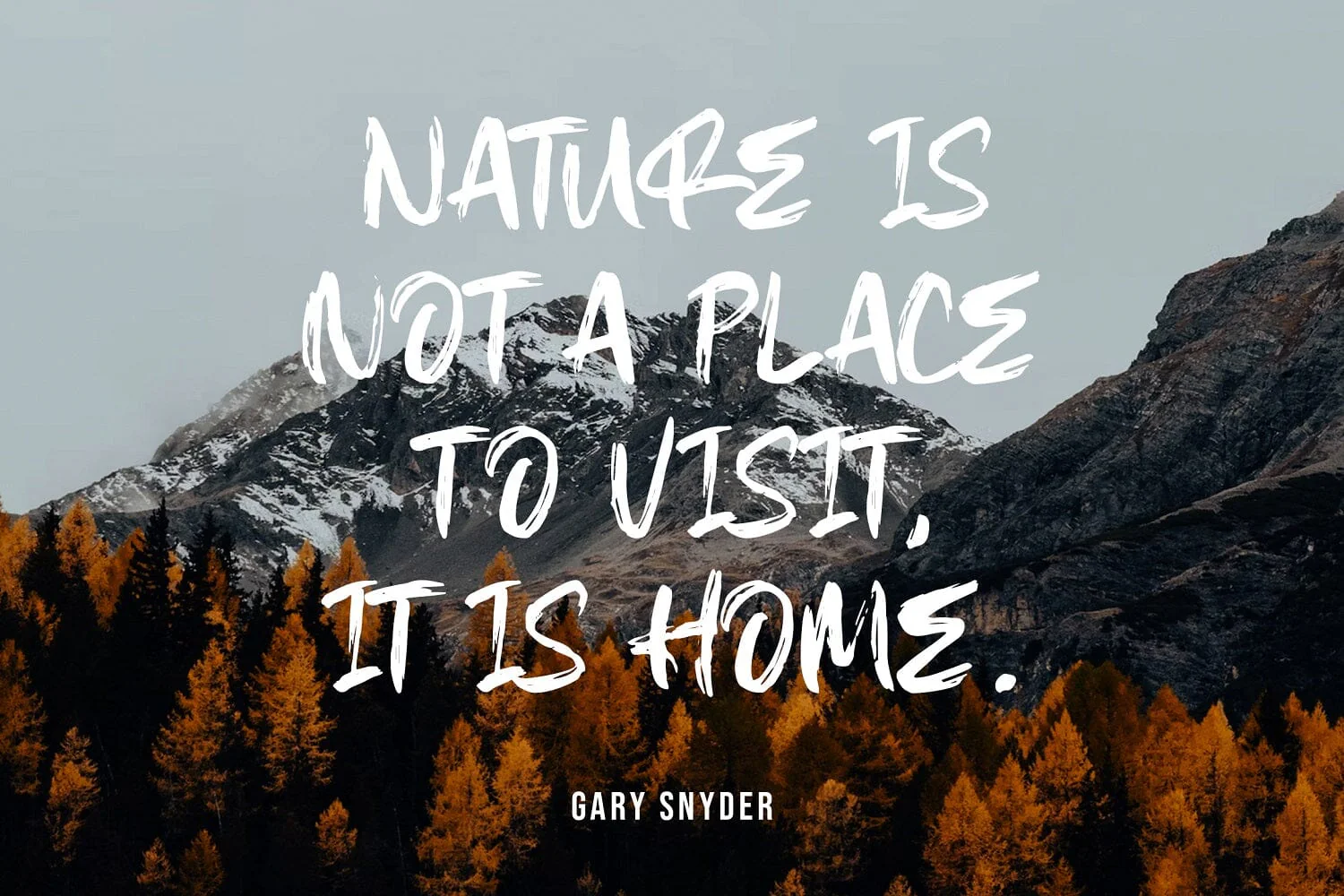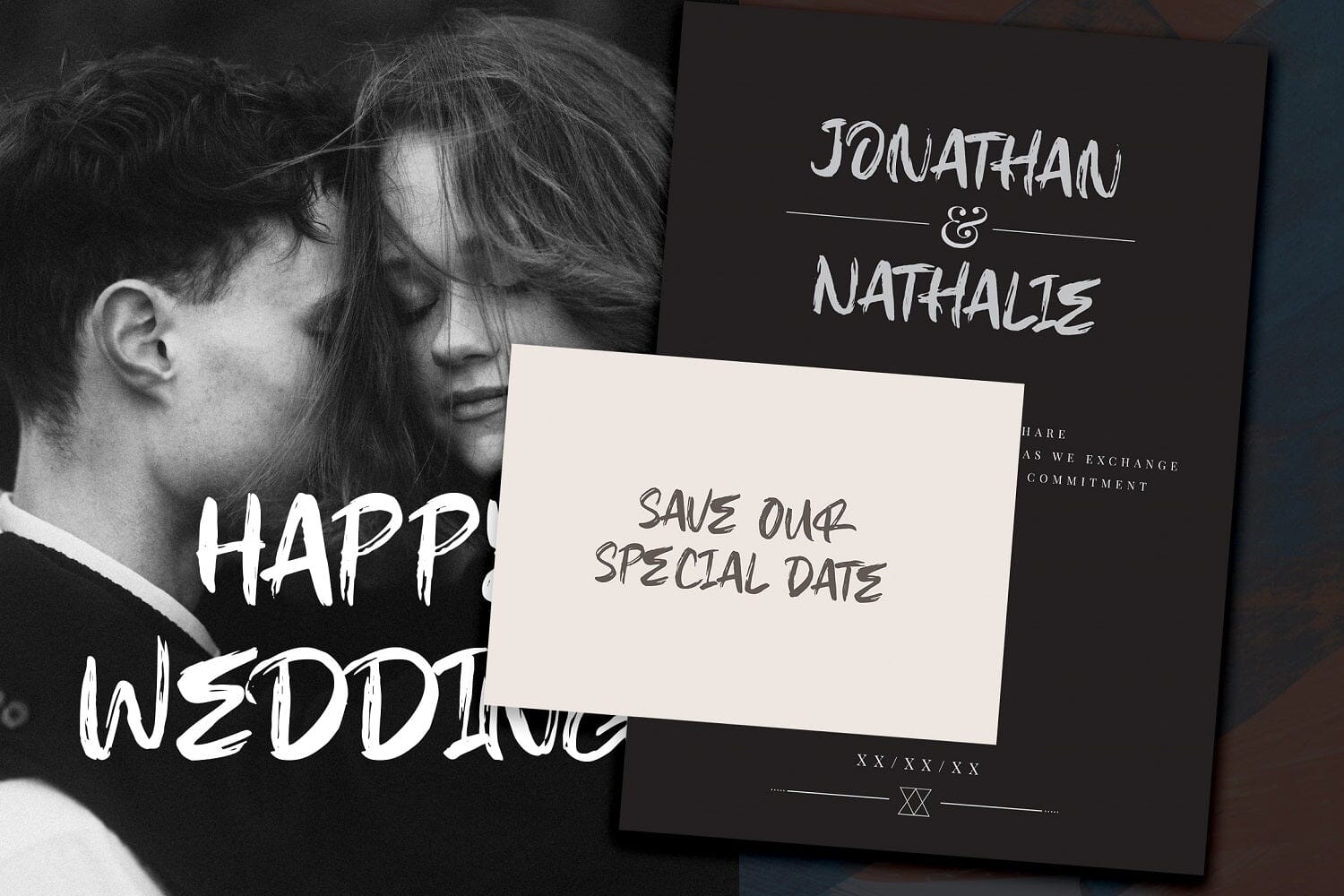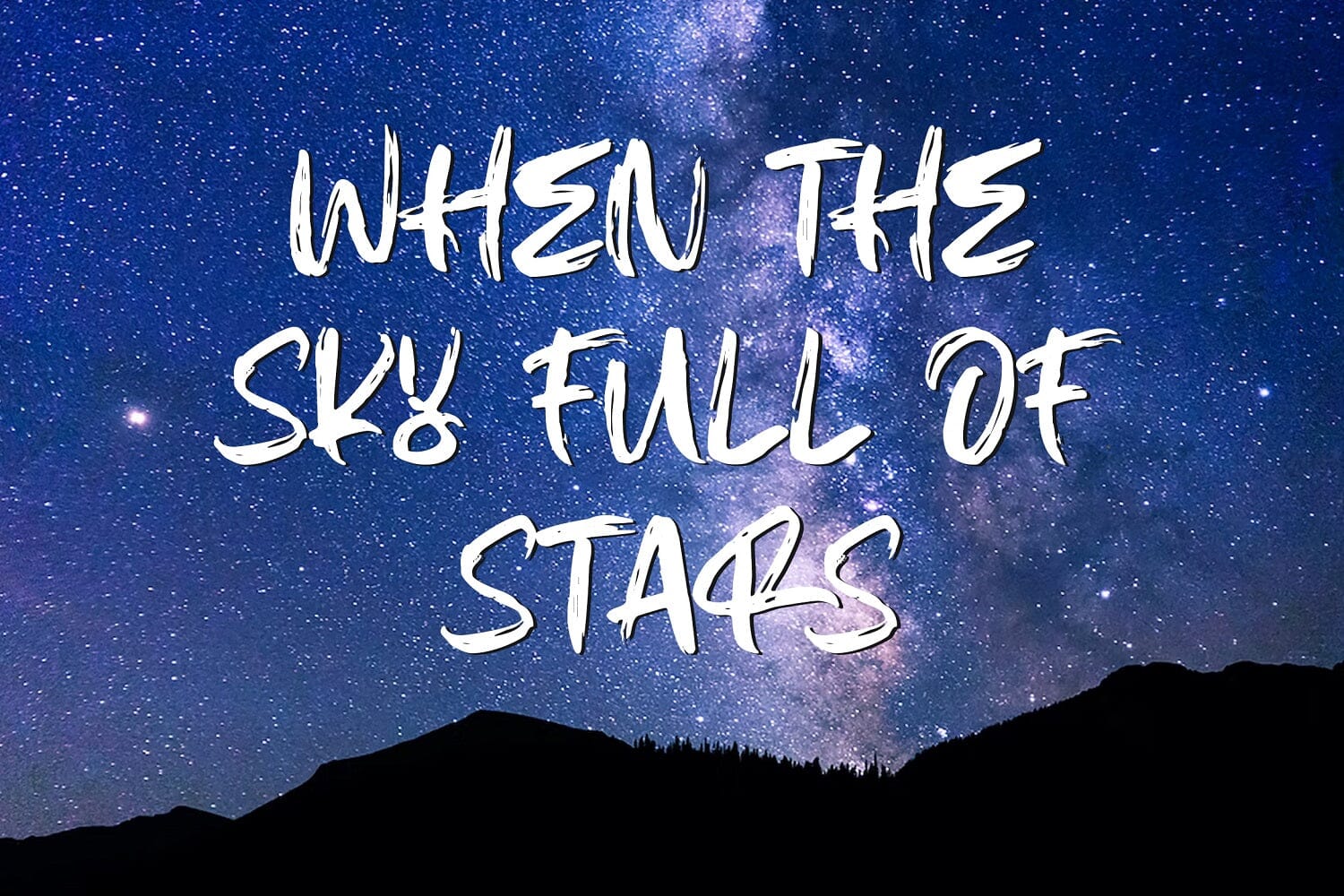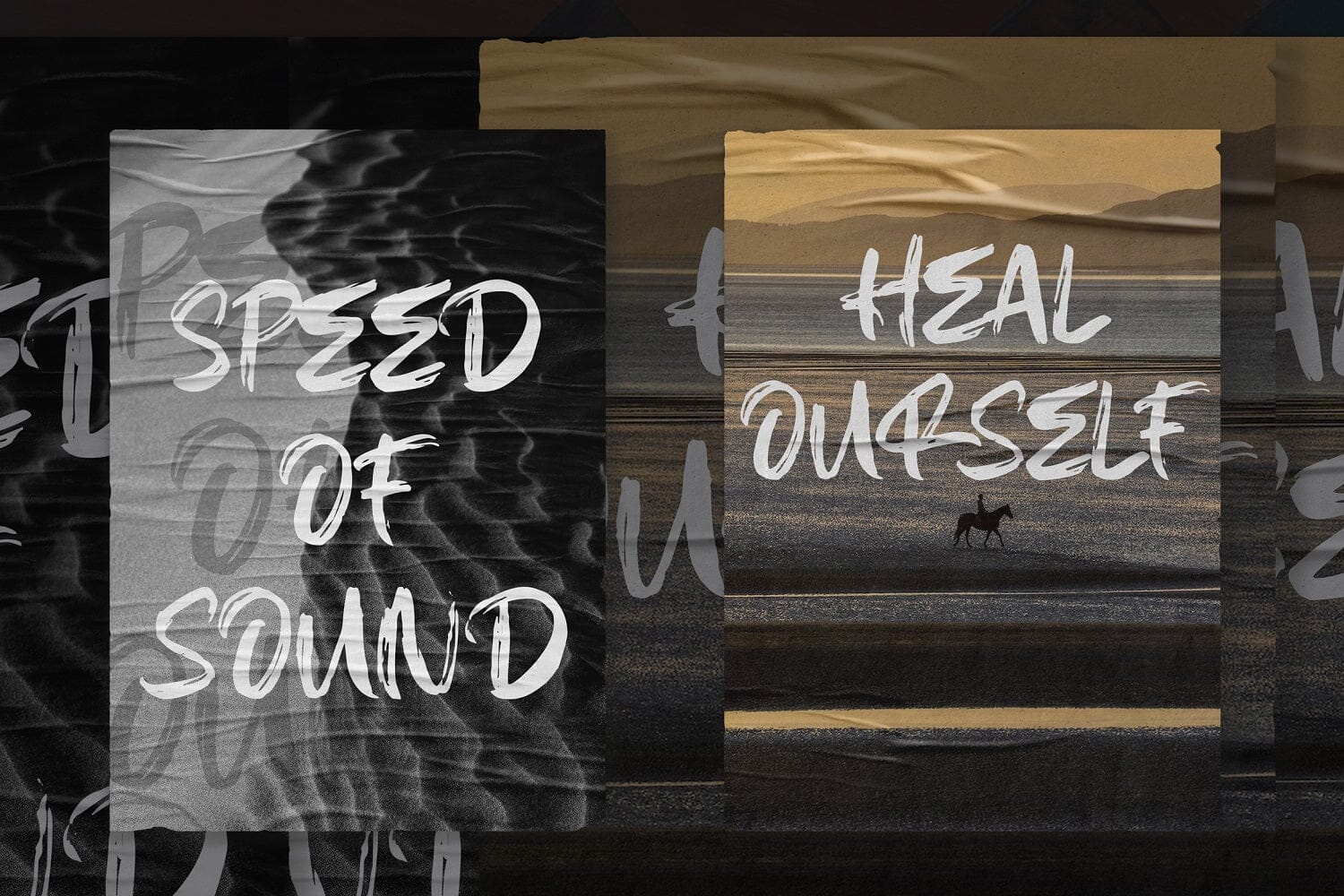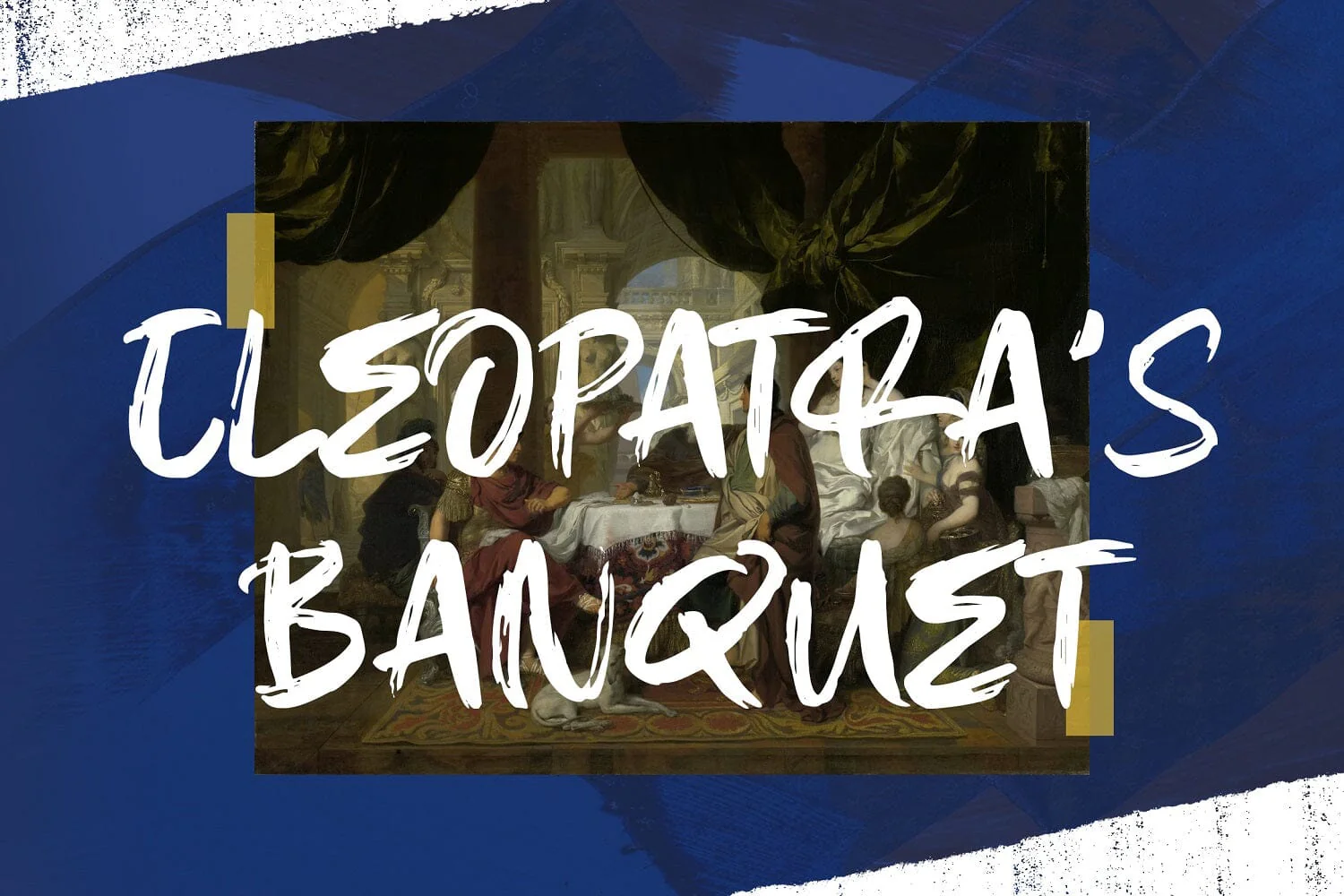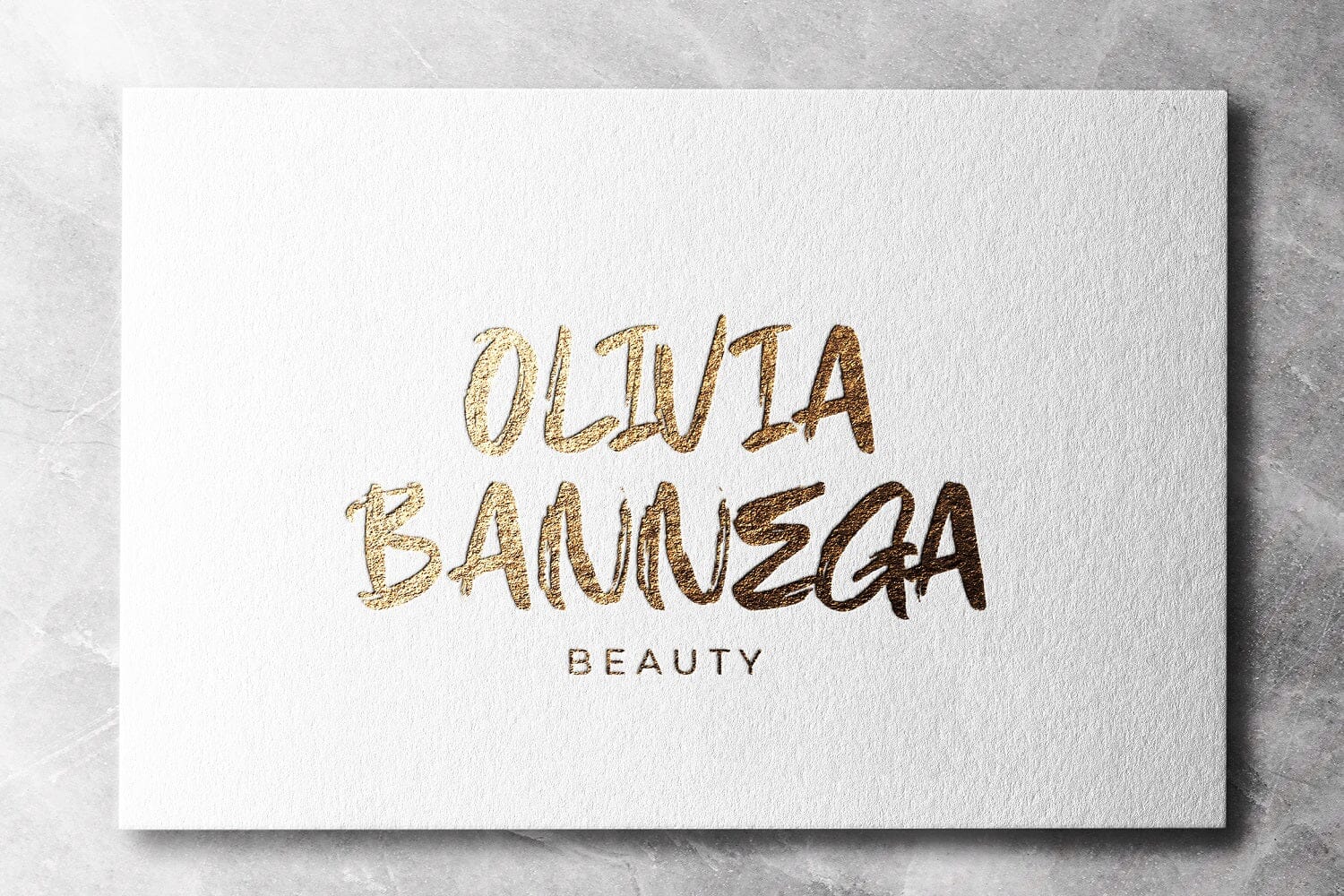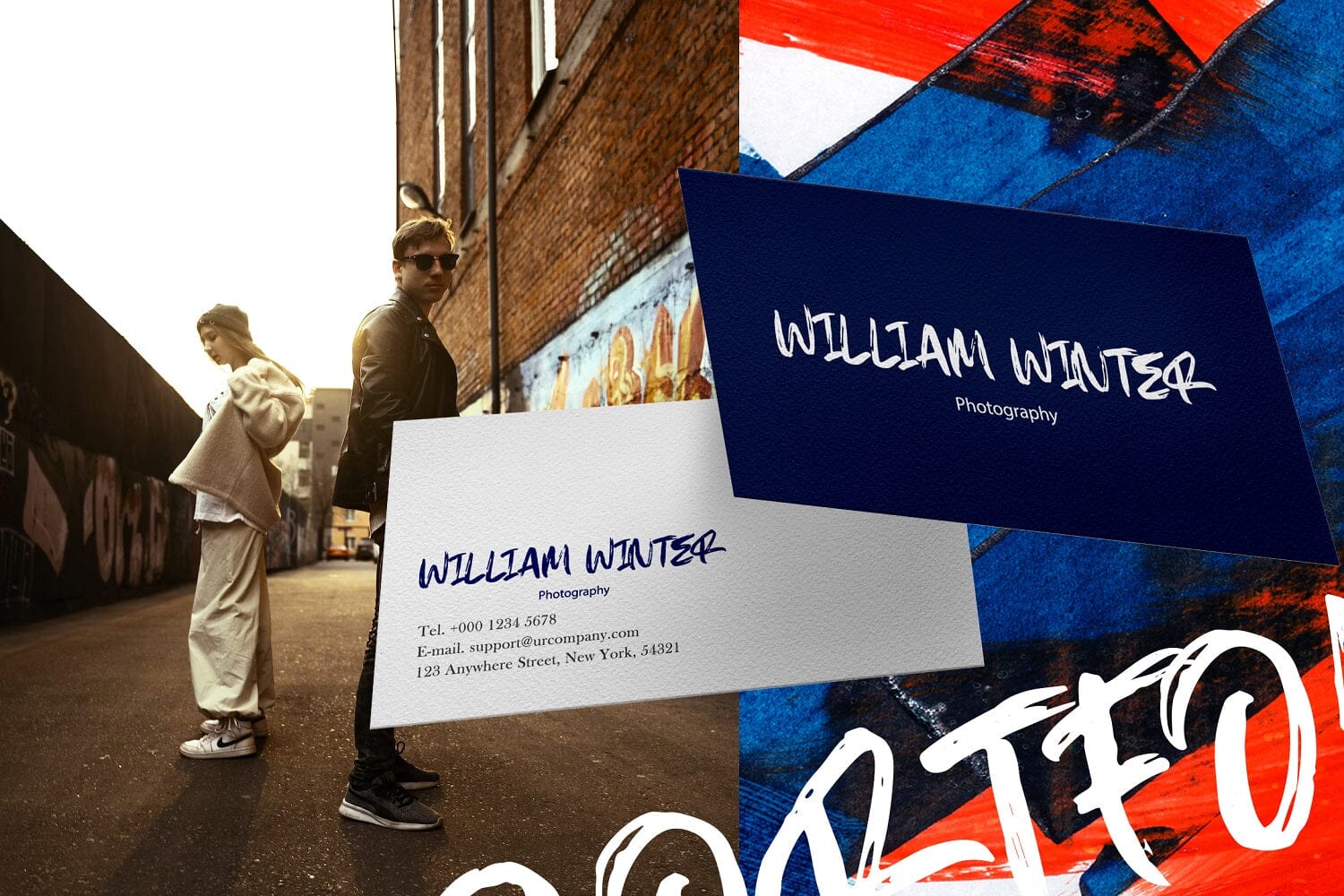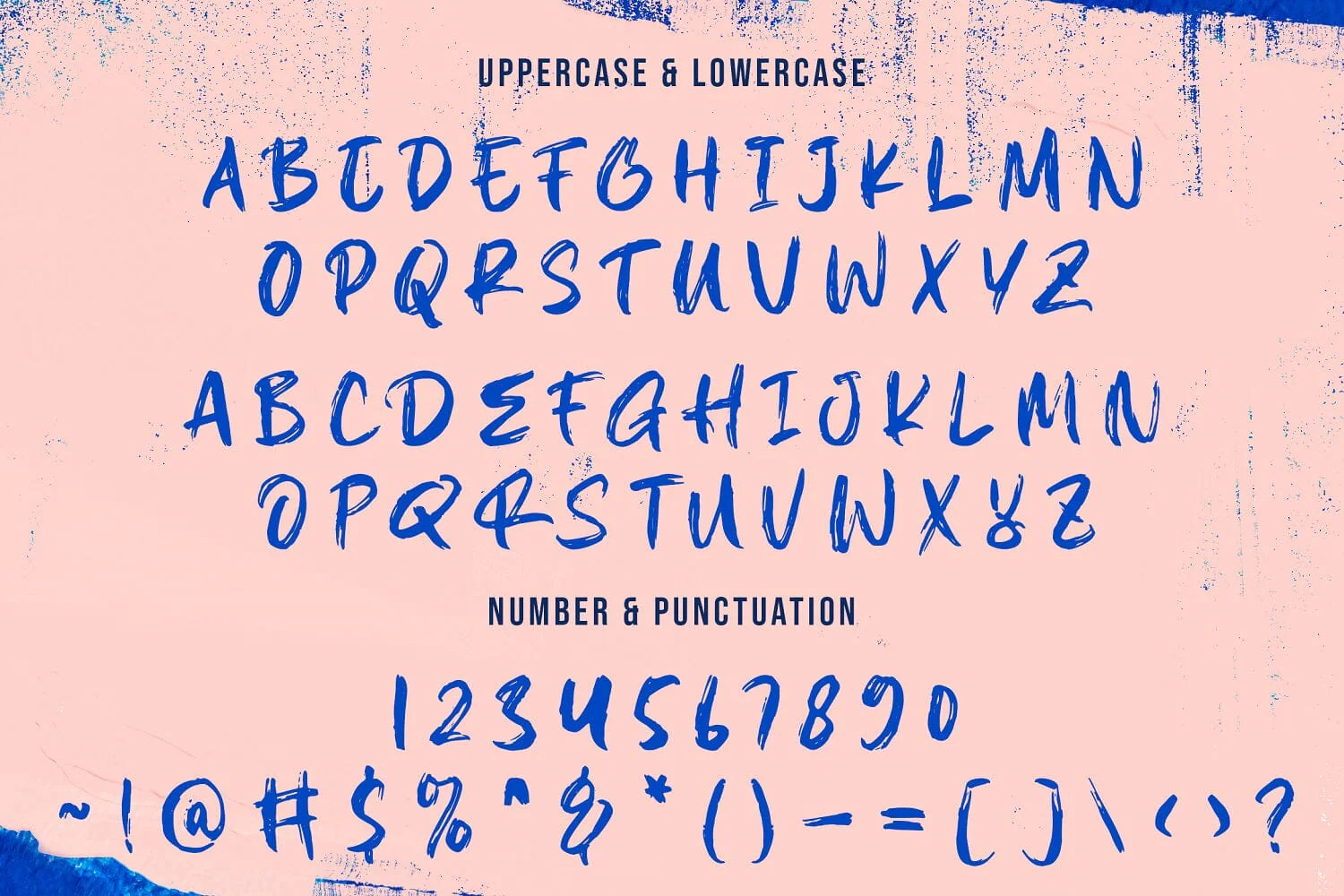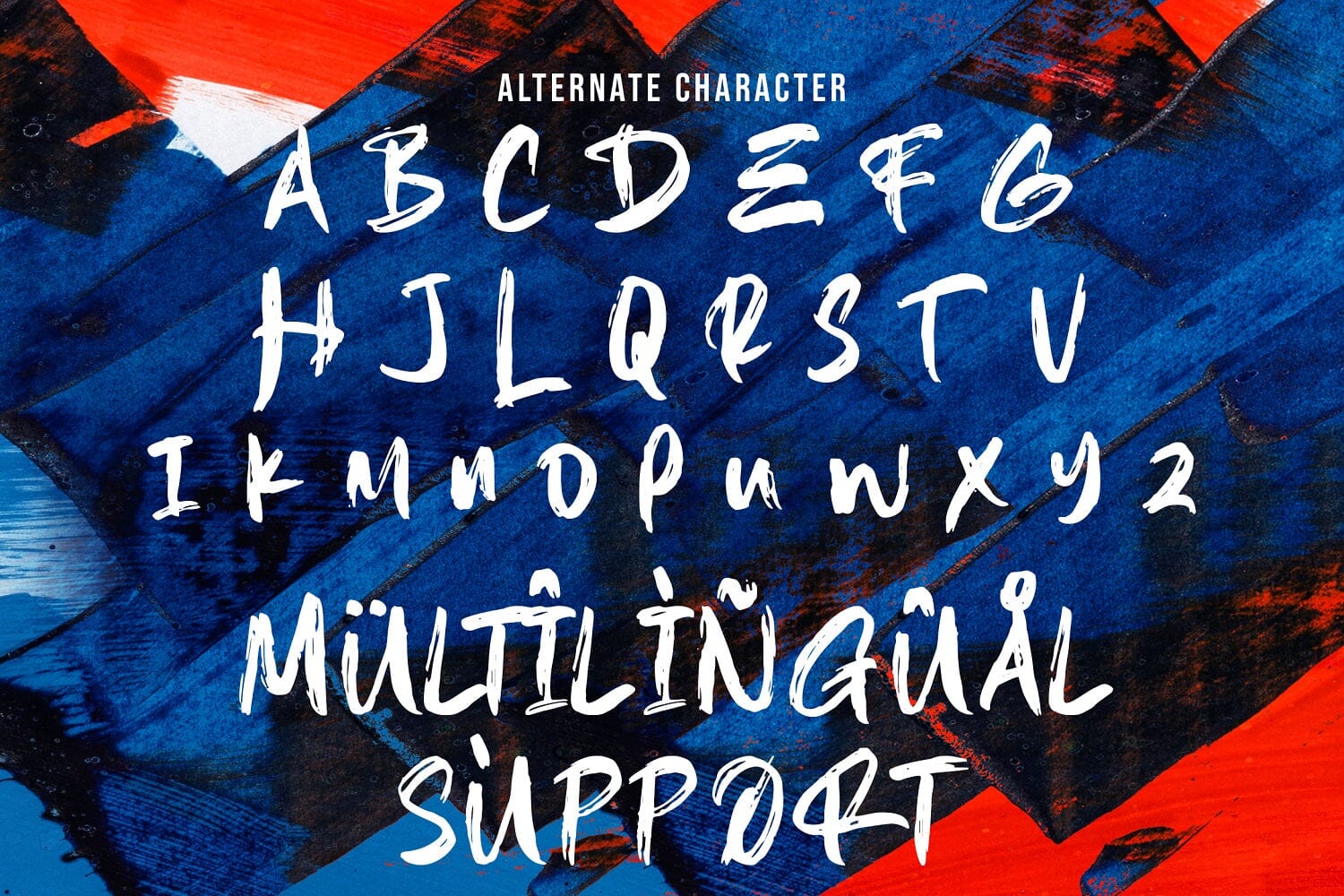
EPICAL GLORY - Textured Brush Font
Introducing EPICAL GLORY - Textured Brush Font
EPICAL GLORY is a textured handbrush font. EPICAL GLORY is a flowing and stylish display brush font, created with the help of a brush pen. Get inspired by its unique and beautiful style and add it to your favorite designs!
Introducing EPICAL GLORY - Textured Brush Font
EPICAL GLORY is a textured handbrush font. EPICAL GLORY is a flowing and stylish display brush font, created with the help of a brush pen. Get inspired by its unique and beautiful style and add it to your favorite designs!